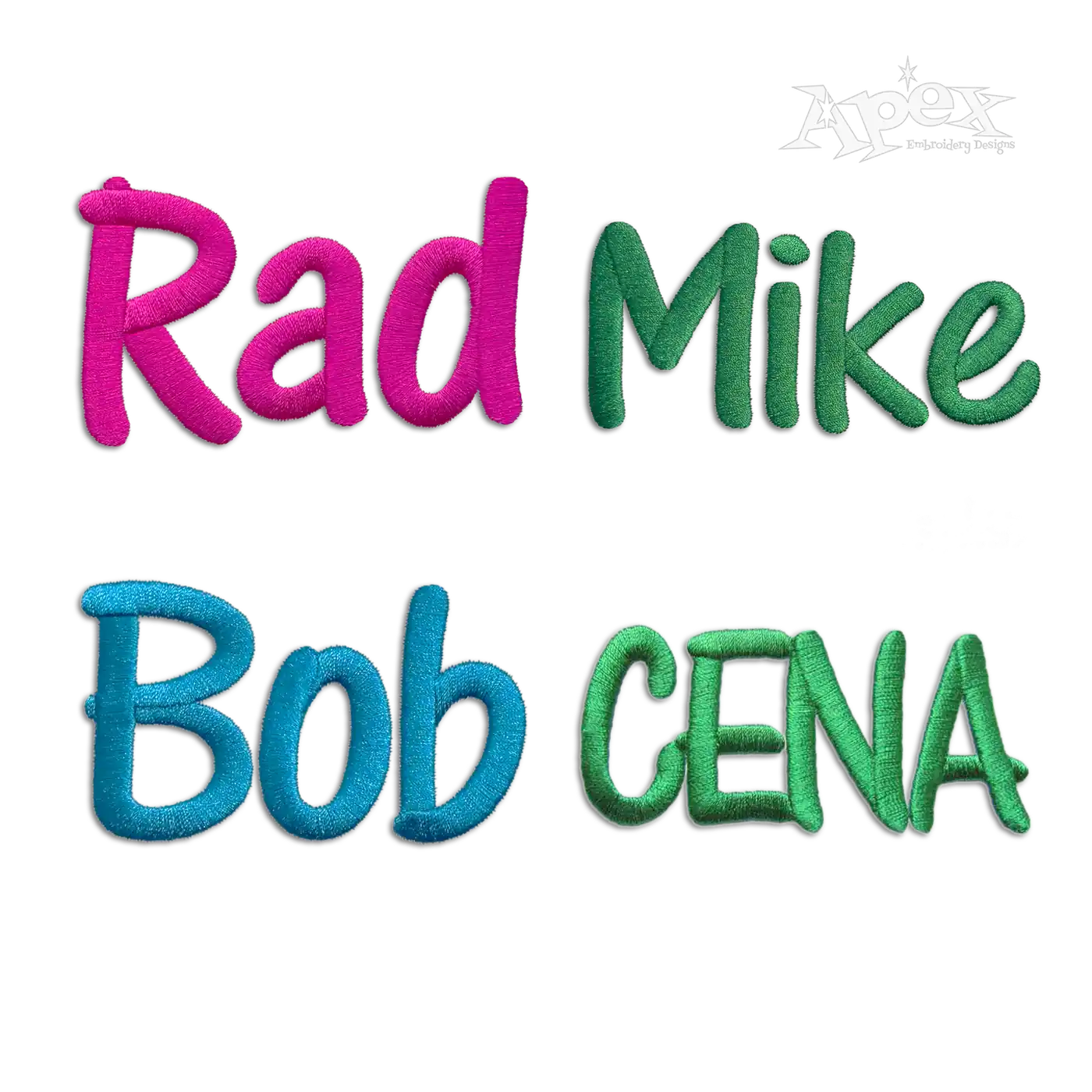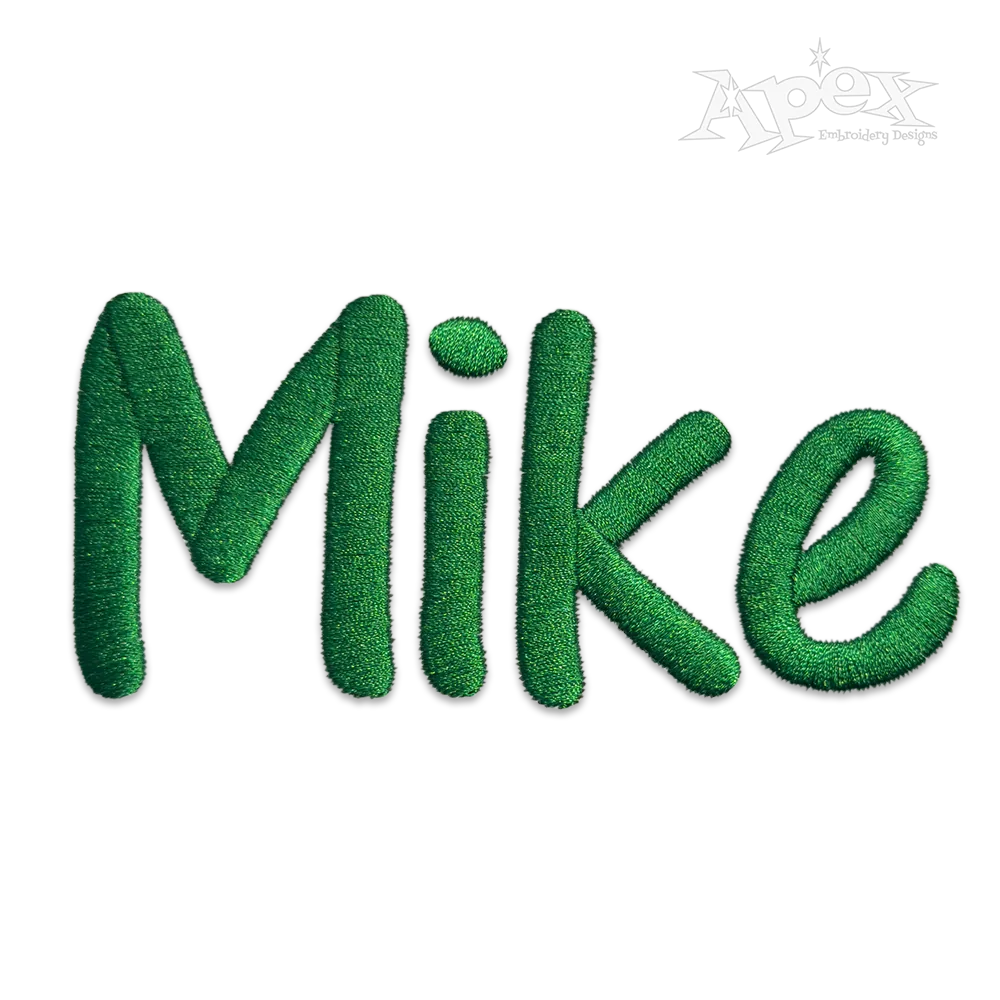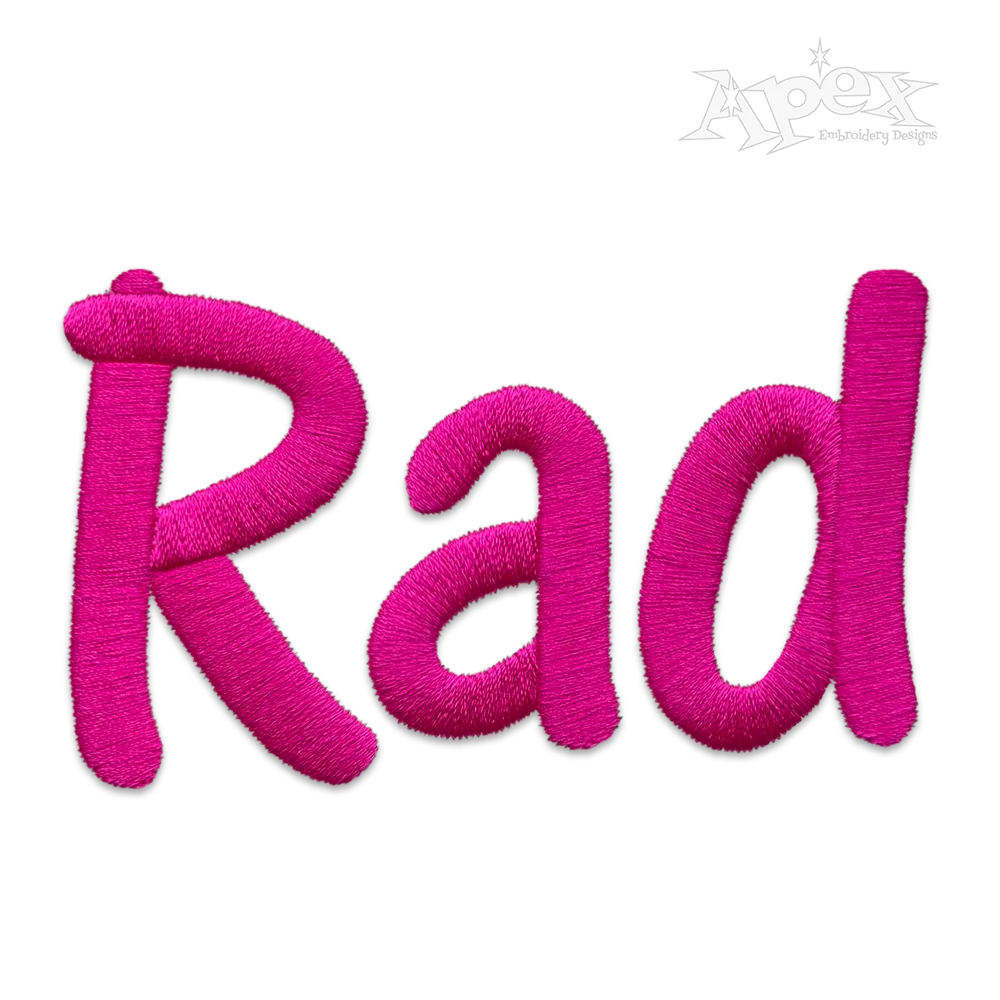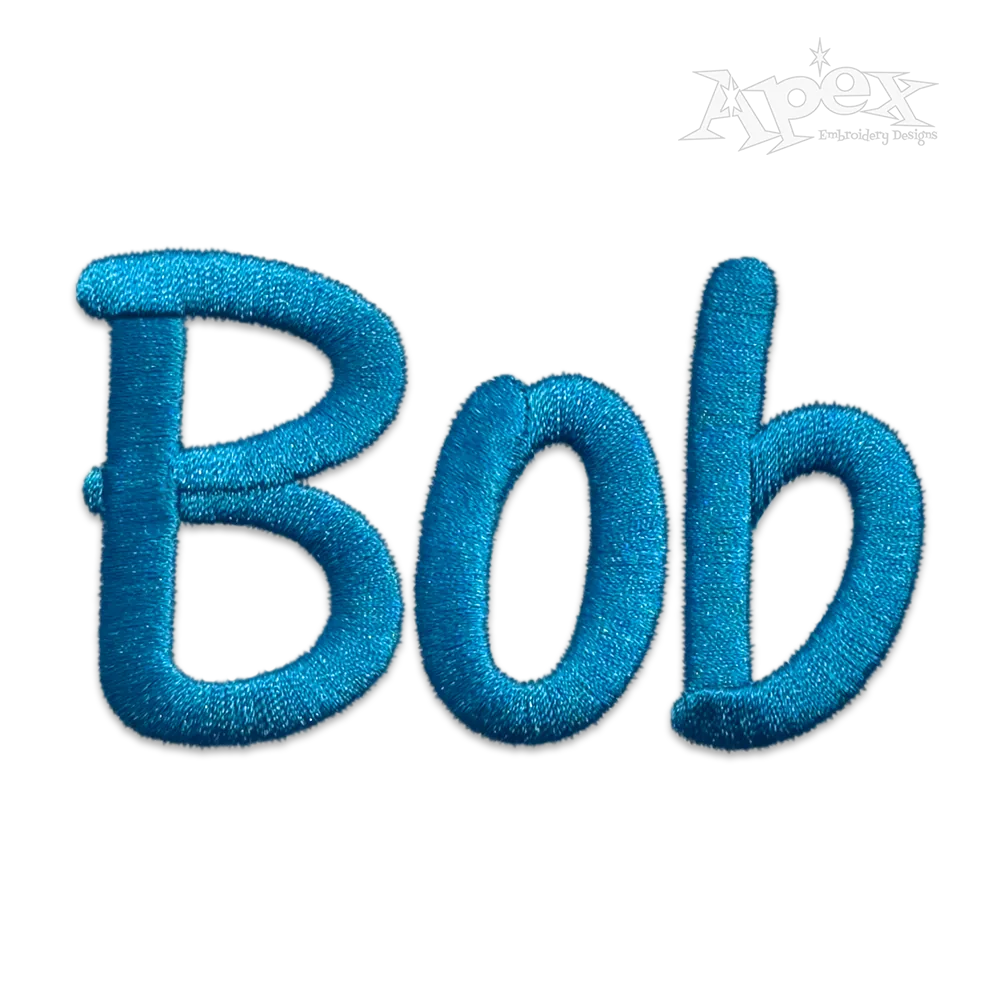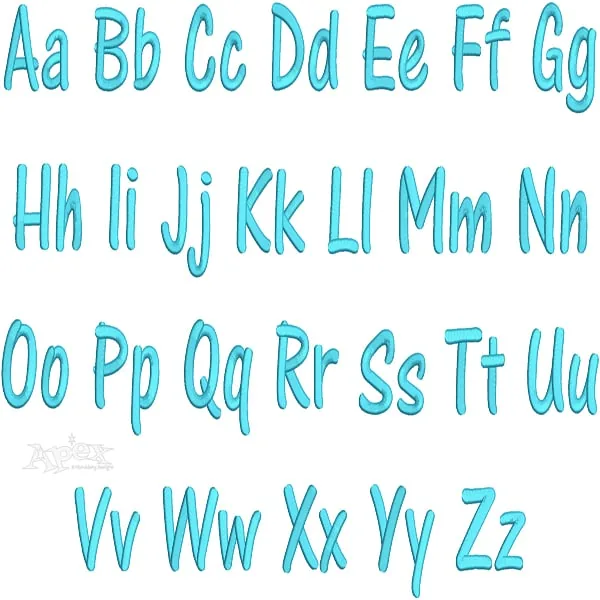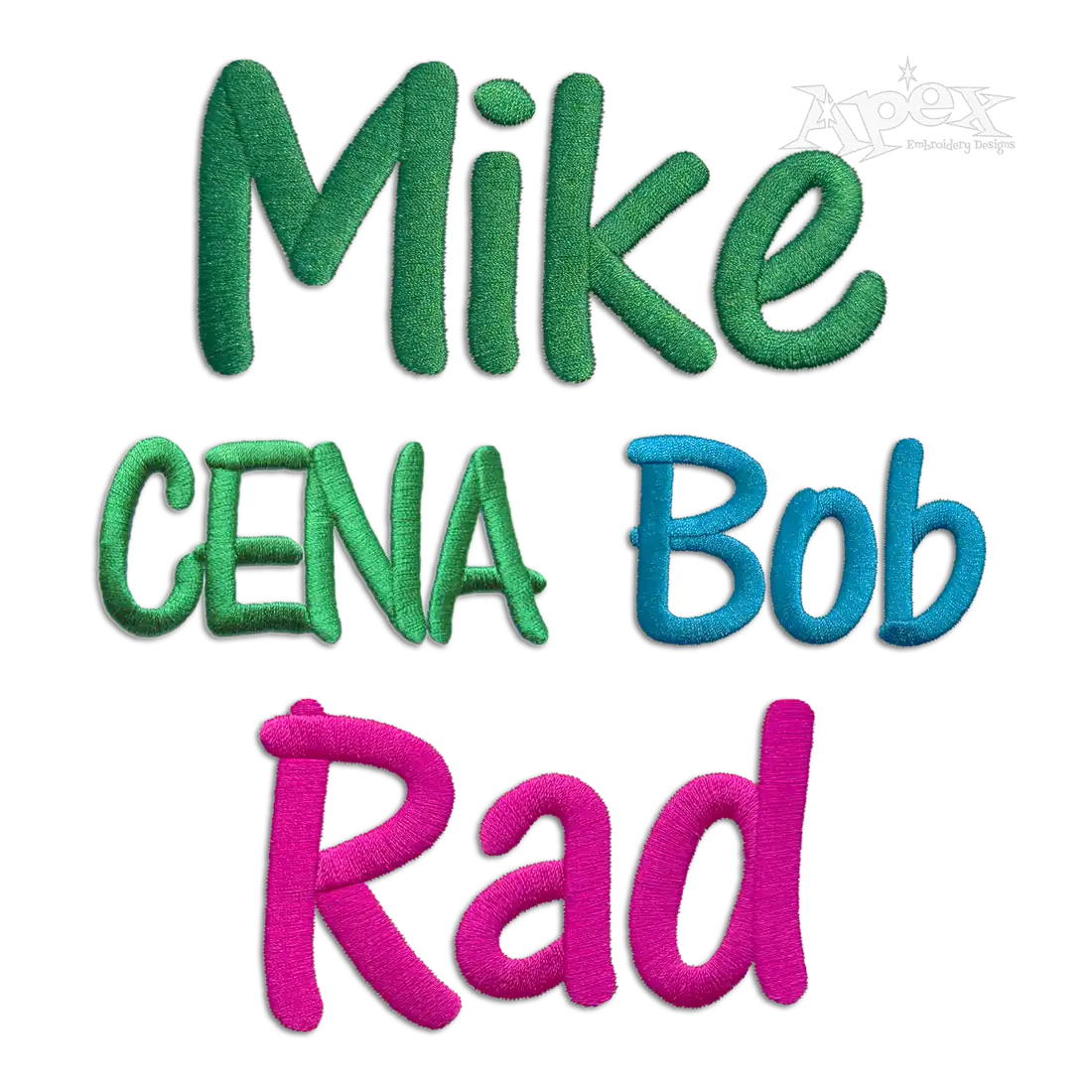
Cena Embroidery Font
There is an undeniable magnetism in bold, confident typography that commands the fabric with poise and clarity. When digitizing the Cena Embroidery Font, our artisan vision was to balance unapologetic substance with the velvety, light-catching sheen that only a masterfully tensioned satin stitch can deliver. Cena steps forward with heavyweight architectural presence, resolute curves, and assertive stems, bringing modern energy to personalized monogramming, bespoke resort wear, and statement heirloom textiles. Every needle drop is meticulously calibrated to lay down rich, dimensional thread coverage, transforming blank canvas and plush weave alike into an unforgettable tactile experience.
The Cena alphabet has been precision-scaled and individually optimized across four versatile heights to ensure crisp stitch generation whether accenting small accessories or anchoring expansive textiles:
- 0.75 inch (19mm): Ideal for subtle pocket monograms, dress shirt cuffs, structured hat panels, and tailored luggage tags.
- 1.00 inch (25mm): Perfectly proportioned for linen cocktail napkins, cosmetic pouches, personalized baby gifts, and collar accents.
- 1.50 inch (38mm): Designed for striking impact on heirloom bedding, custom bath sheets, canvas tote bags, and tailored outerwear.
- 2.00 inch (50mm): A breathtaking focal size for oversized sweater centers, robe backs, dramatic throw pillows, and luxury gift blankets.
Project Ideas for Cena
The robust weight and clean silhouette of Cena make it uniquely adaptable across modern casual apparel and heirloom-quality home appointments:
- Heavyweight Canvas Totes & Duffels: The extra-bold stroke profile stands proud against rugged textures, creating crisp, unmistakable weekend travel gear.
- Bespoke Resort Wear & Terry Towels: Thick cotton weaves and dense terry cloth meet their match in Cena's rich stitch coverage, which stays beautifully raised above deep pile.
- Heirloom Bedding & Duvet Covers: Embroider three-letter initials across crisp percale or Belgian linen for a tailored, hotel-suite aesthetic.
- Bridal & Groom Loungewear: Stitch bold surname monograms onto plush velvet robes or waffle-knit wraps for unforgettable wedding party keepsakes.
- Modern Nursery Accents: Frame sweet modern names onto quilted nursery blankets, canvas storage bins, and personalized growth charts.
Because Cena is an extra-bold typeface, its visual balance thrives when given intentional negative space and structured placement:
- Center Chest & Sweatshirt Collars: Position initials or compact surnames 3 to 4 inches below the front neckline, letting the bold letterforms serve as the focal centerpiece.
- Corner Diagonals on Luxury Linens: For dinner napkins and linen placemats, angle a single initial at 45 degrees, set 1.5 to 2 inches from the hemmed corner for a classic, sophisticated finish.
- Sleeve Cuffs & Pocket Bands: Utilizing the 0.75-inch size, align monogram initials along the upper edge of a pocket hem or parallel to a button cuff for an understated bespoke signature.
- Vertical Spine Placement: For yoga bags, tote straps, and golf towel borders, consider stacking characters vertically to take advantage of Cena's solid, upright geometric stability.
Cena Craft & Letterform Details
True bold embroidery is not simply a standard font made thicker; it requires a specialized digitizing philosophy. As satin columns widen, thread dynamics change dramatically. For Cena, we engineered an intricate network of supportive underlay stitching that builds a firm, vaulted foundation upon the fabric, lifting the topstitch so light glances smoothly across every satin pass without pulling or puckering the surrounding weave.
The letterforms showcase subtly softened corners that allow the needle to pivot gracefully at high speeds, avoiding thread pile-up while retaining the razor-sharp visual boundary of an extra-bold block typeface. Every junction—where horizontal bars intersect strong vertical pillars—features micro-calculated density compensation, preventing unwanted bulk and guaranteeing that every sewn initial reads with pristine typographic harmony.